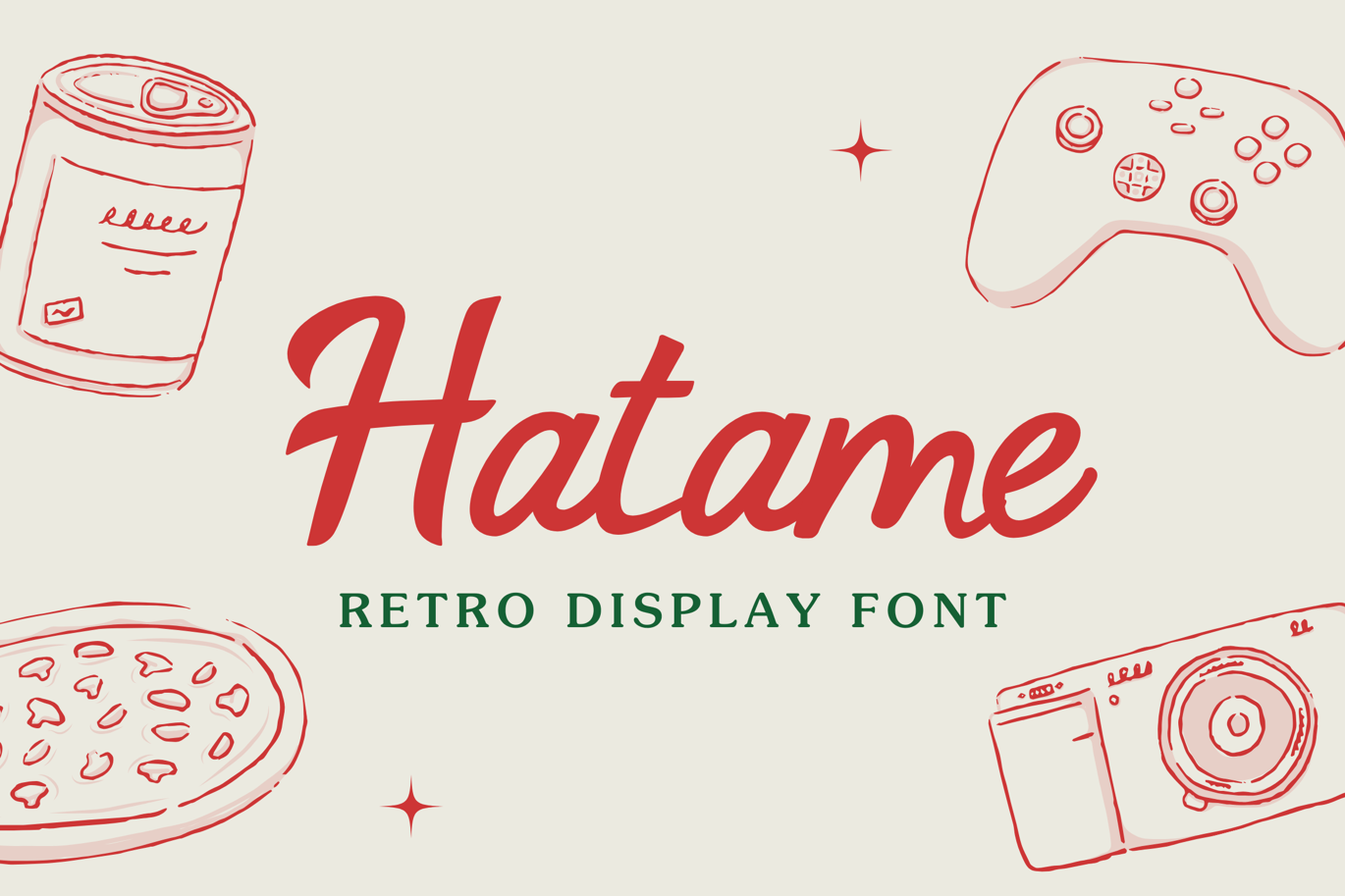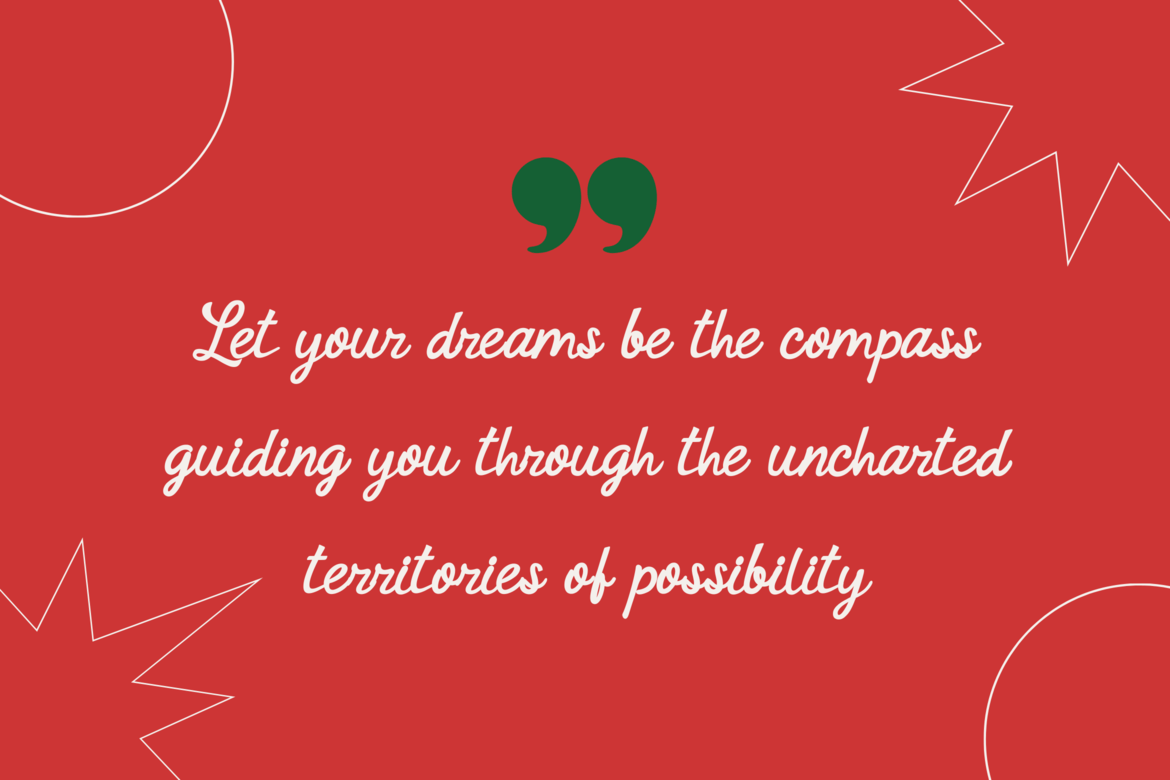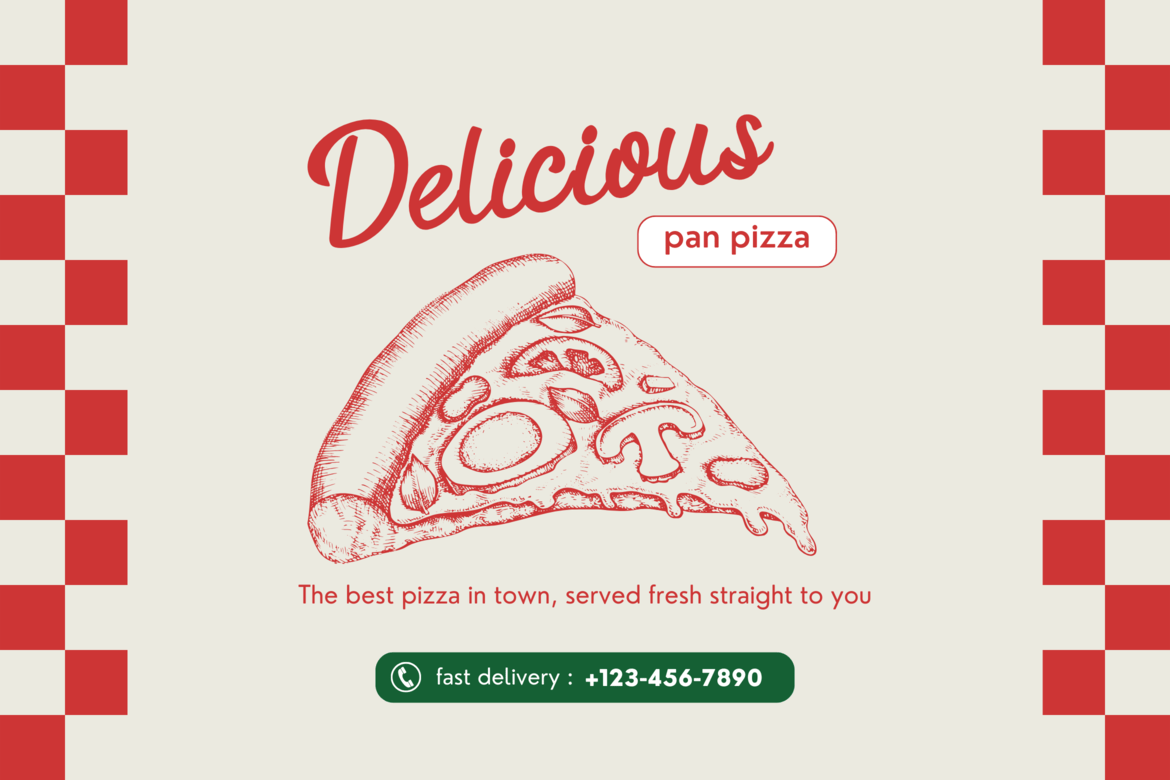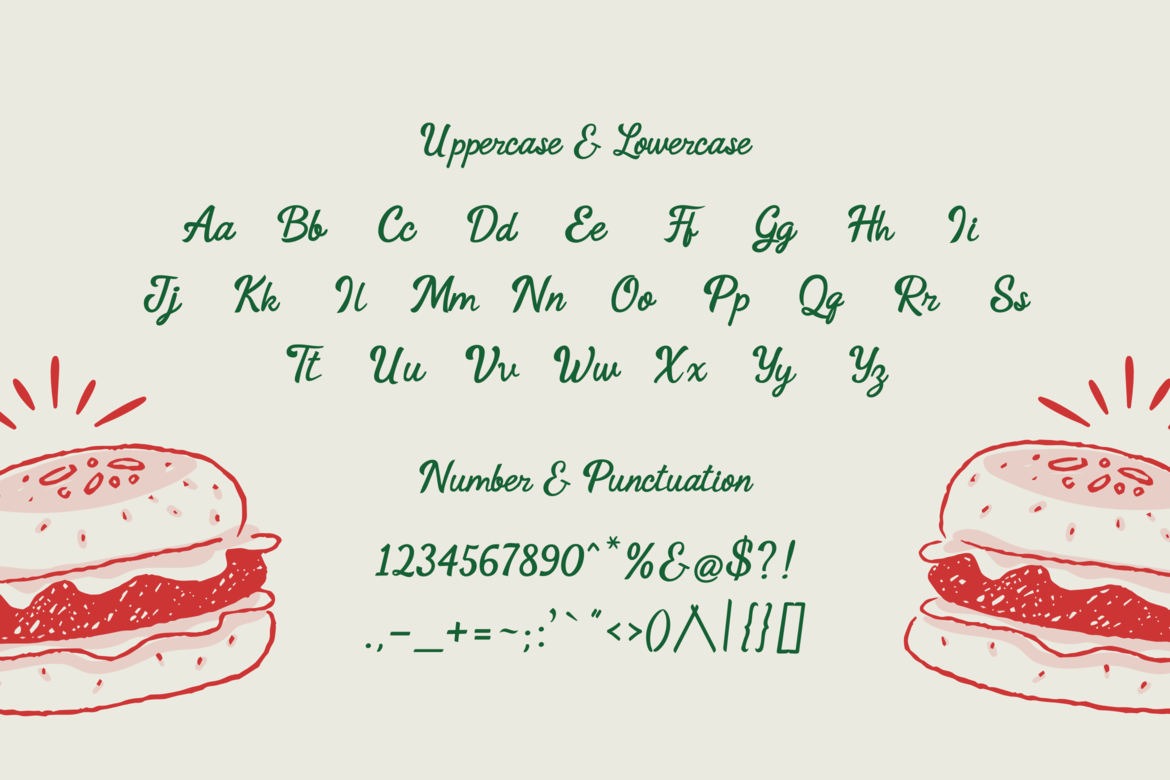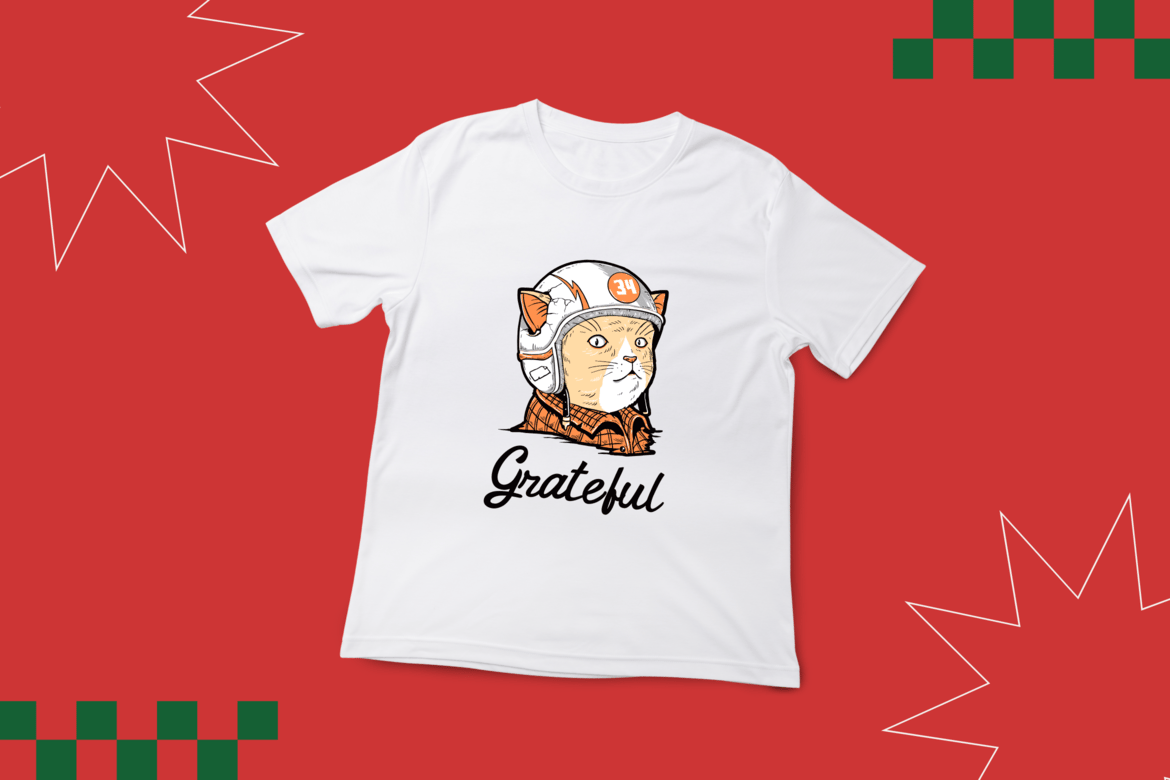
Hatame | Retro Font
Description
The exquisite and gorgeous vintage display font Hatame Font is classy. It will provide a distinct vibe to your next projects with its old look. Take inspiration from its genuine vibe to design stunning greeting cards, eye-catching social media posts, exquisite logo art, and stunning event promos.